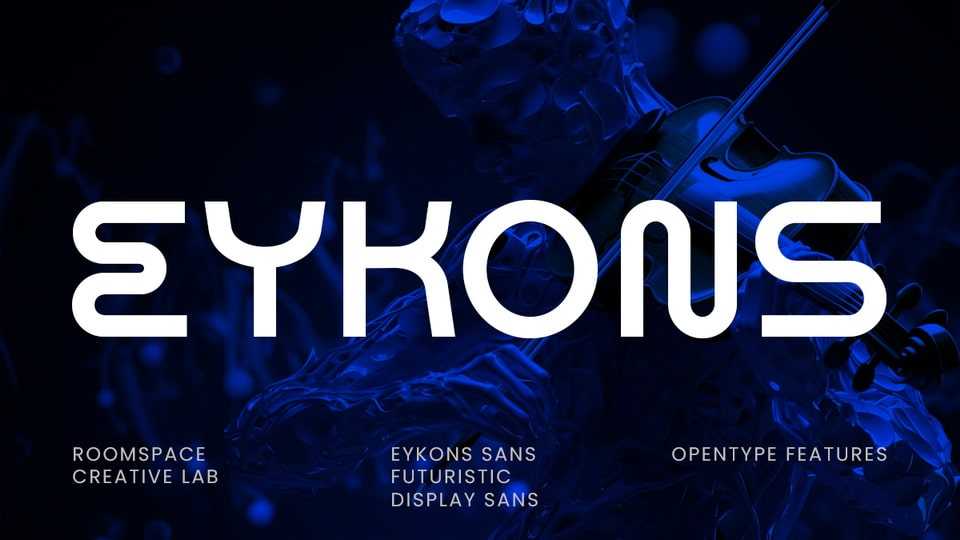
Download Eykons font, a modern futuristic sans serif typeface designed to bring boldness and clarity into every project with its geometric precision and strong personality.